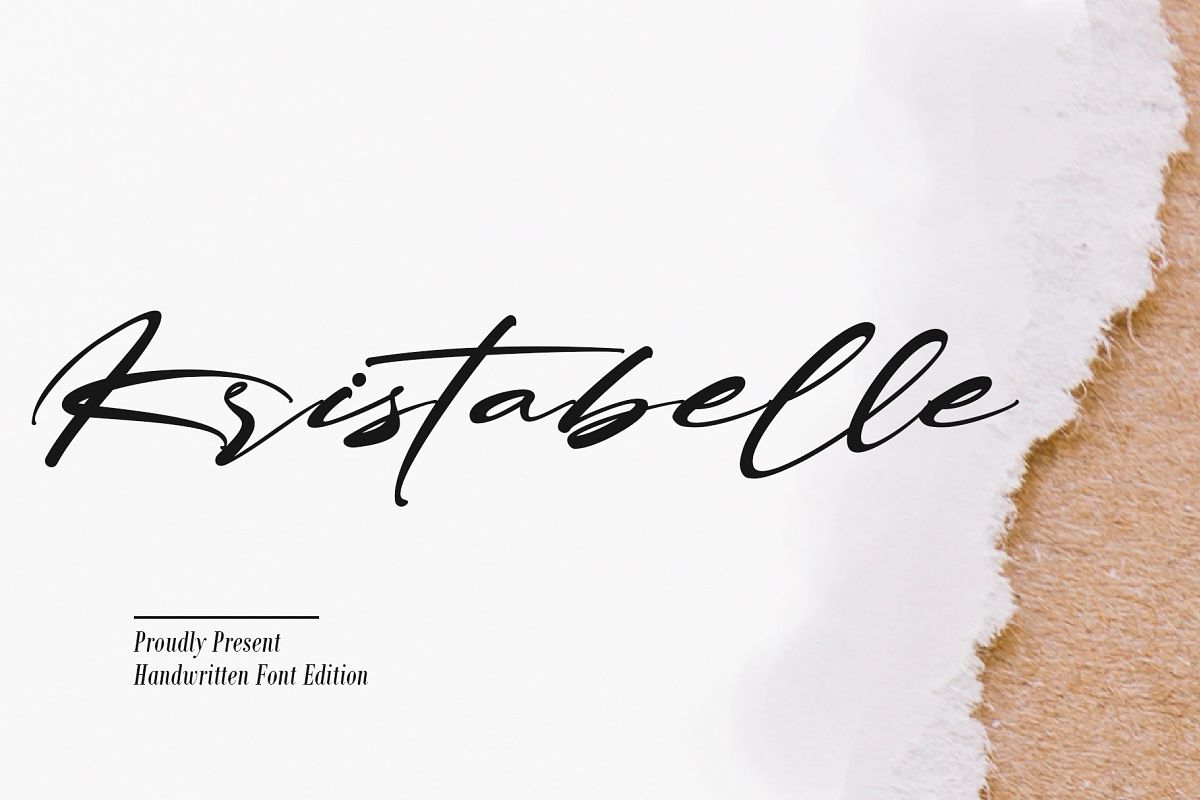
Kristabelle
Kristabelle Italic
Kristabelle is a handwritten script, with a modern and
sensible style. This font is ideal for wedding and other romantic invitationals
• The style
in this font include: Regular& Italic
• Support
multilingual; ä ö ü Ä Ö Ü ß ¿ ¡